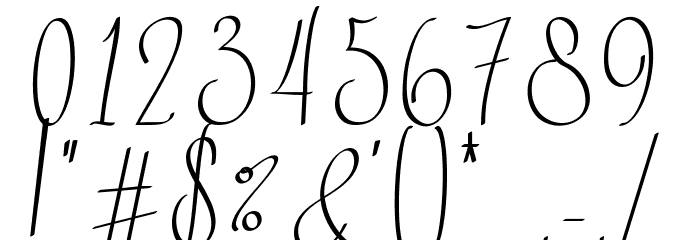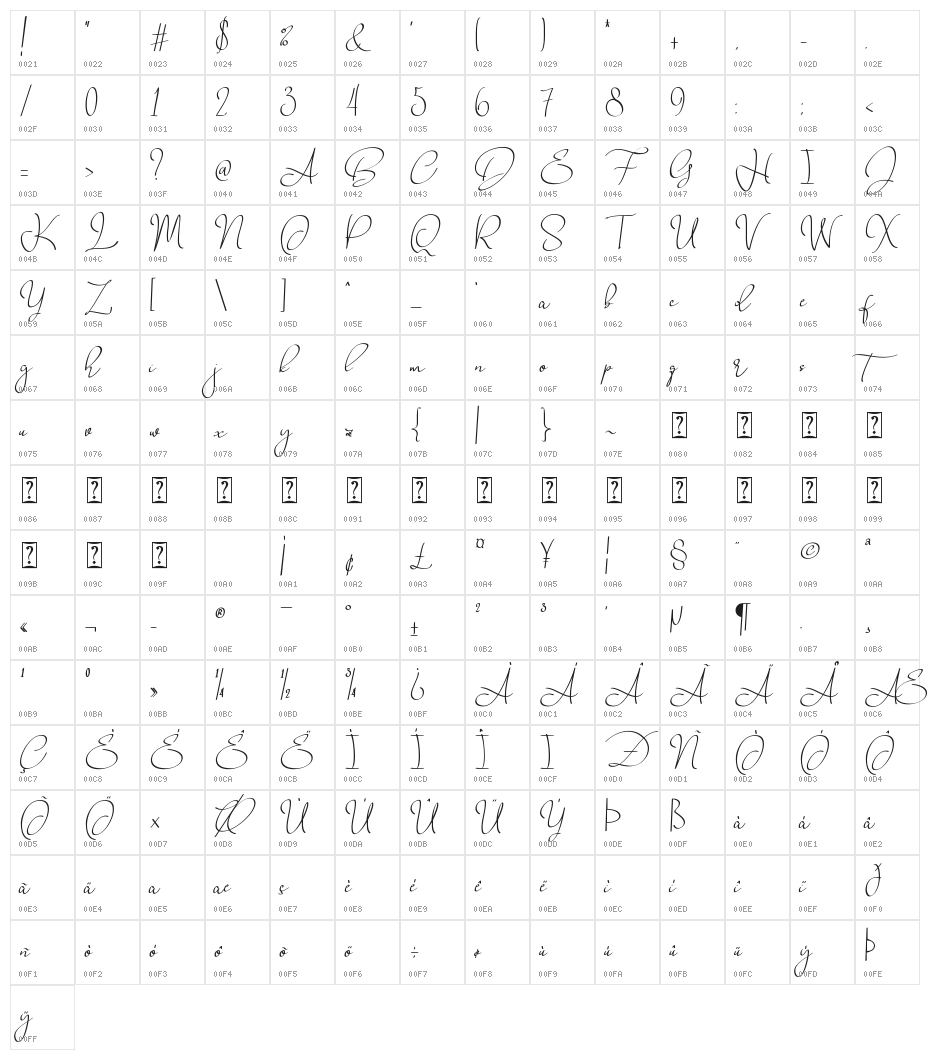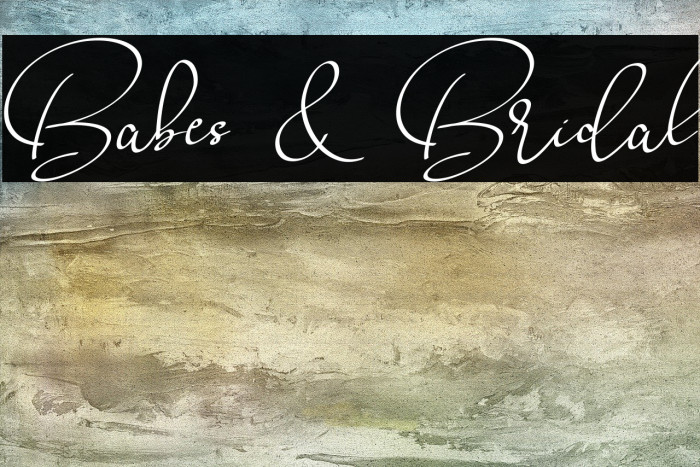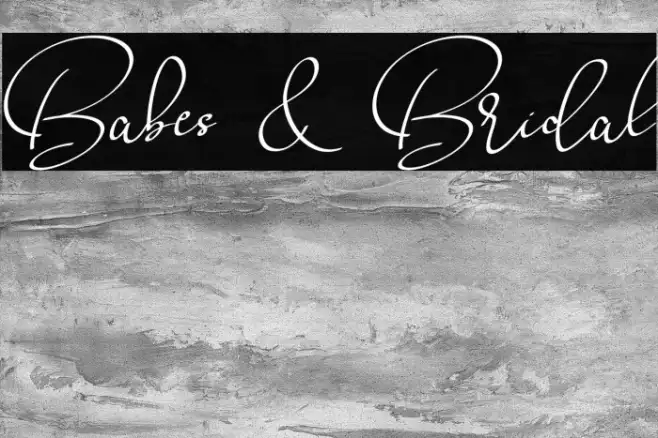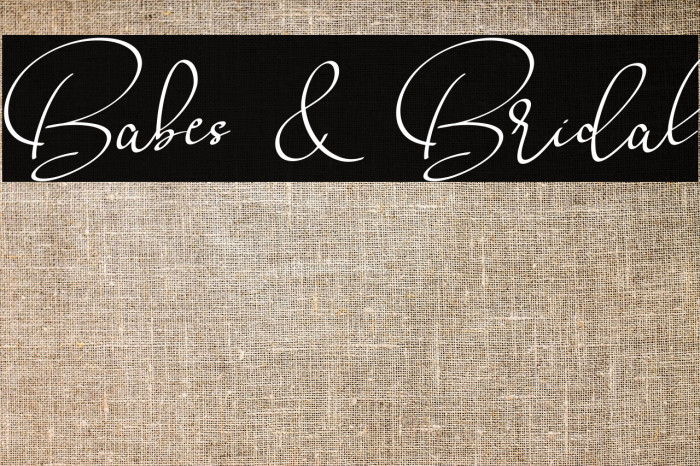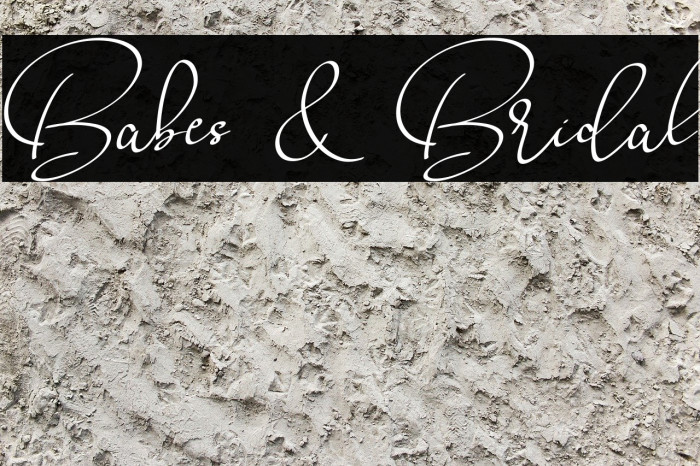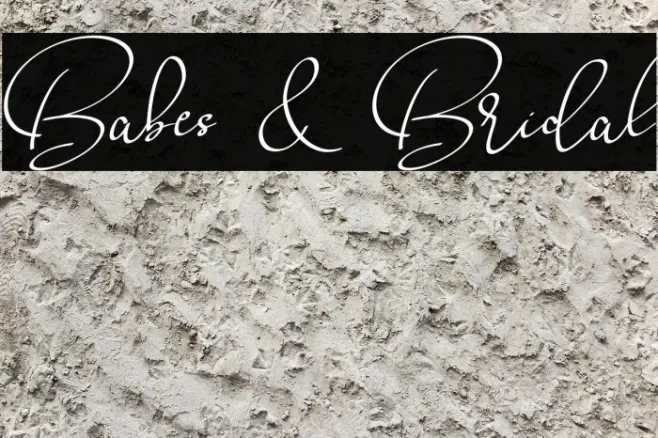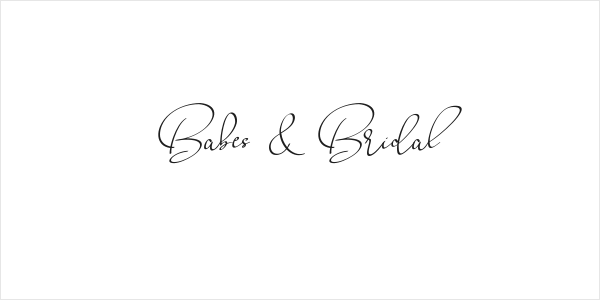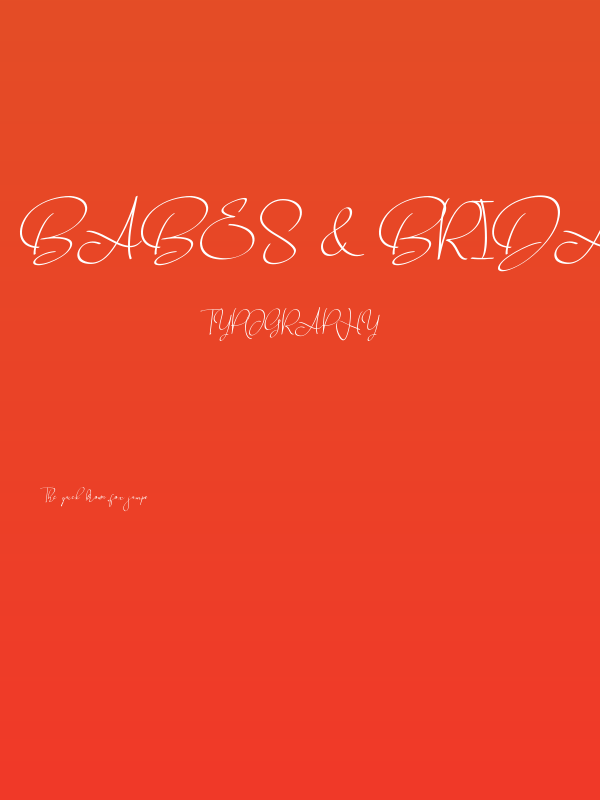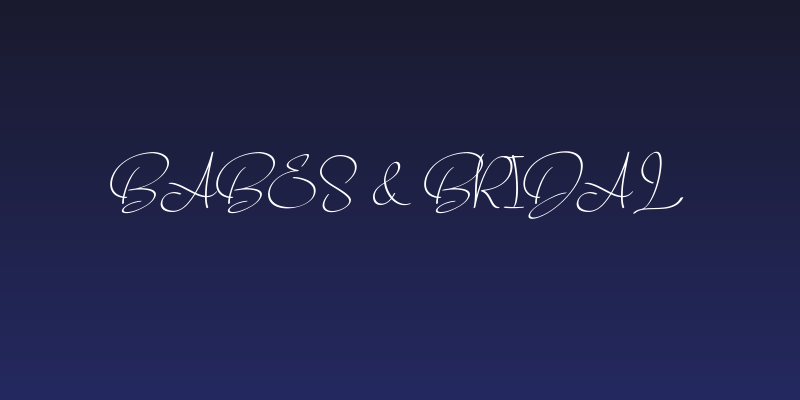
Babes & Bridal Font
Babes & Bridal Description
This elegant script font features a flowing, cursive style with a sophisticated flair. The uppercase letters are characterized by sweeping curves and delicate loops, giving them a graceful appearance. The lowercase letters maintain a consistent fluidity, with some letters connecting seamlessly to the next. Numbers and special characters are designed with the same attention to detail, ensuring a cohesive look throughout. The overall design exudes a sense of romance and refinement, making it ideal for formal and decorative applications.
| Use Case | Invitations, Branding, Decorative |
| Proposed Projects | Ideal for wedding invitations, elegant branding, and romantic greeting cards. |